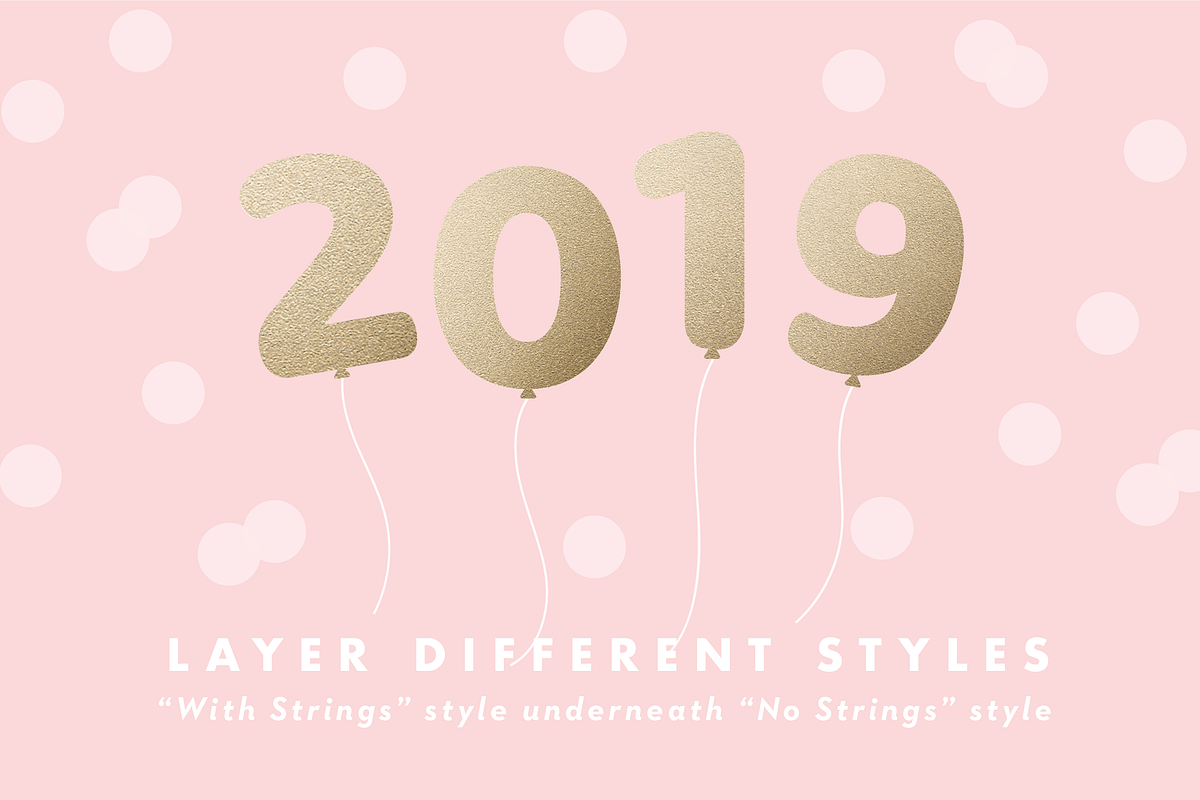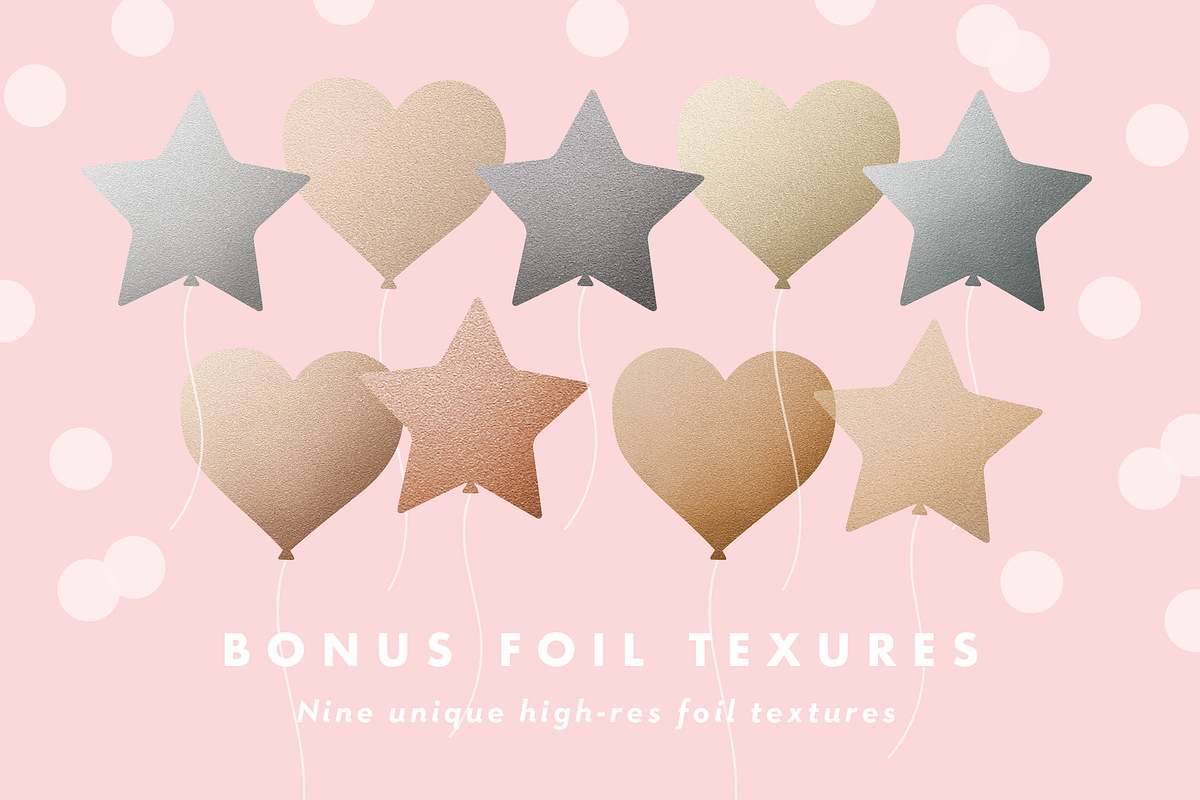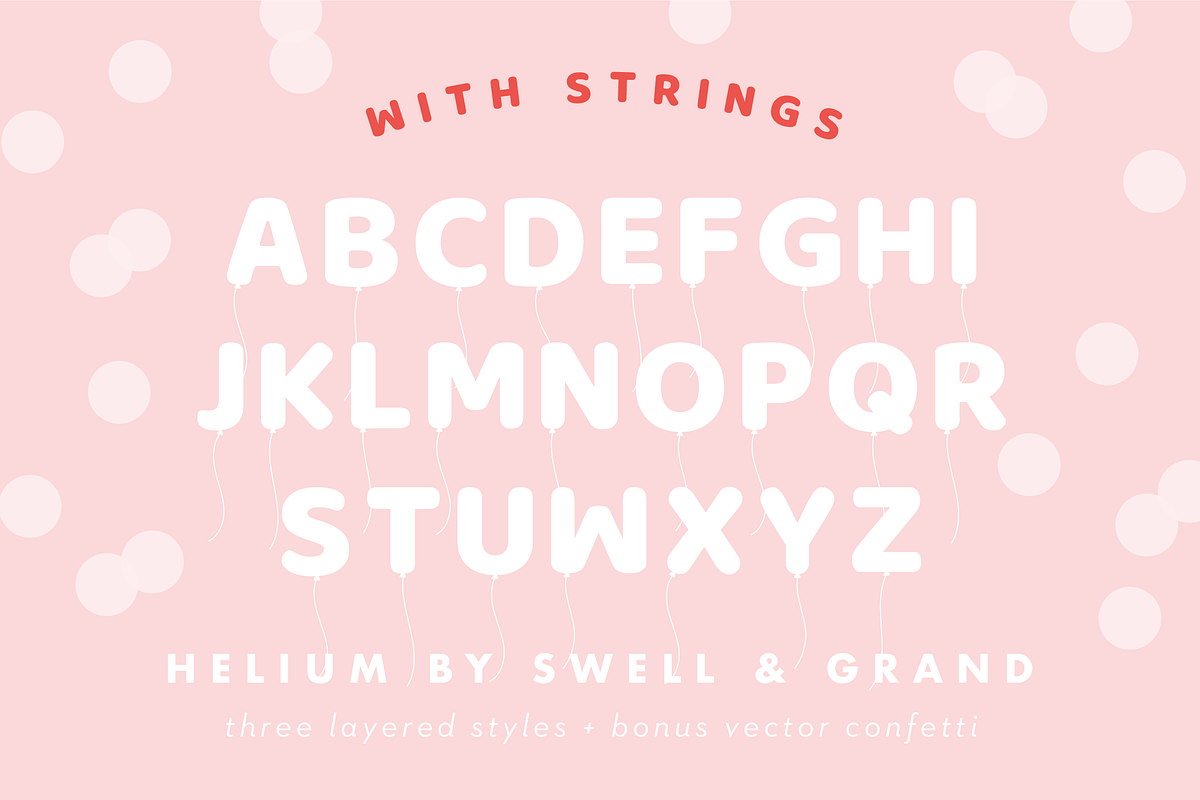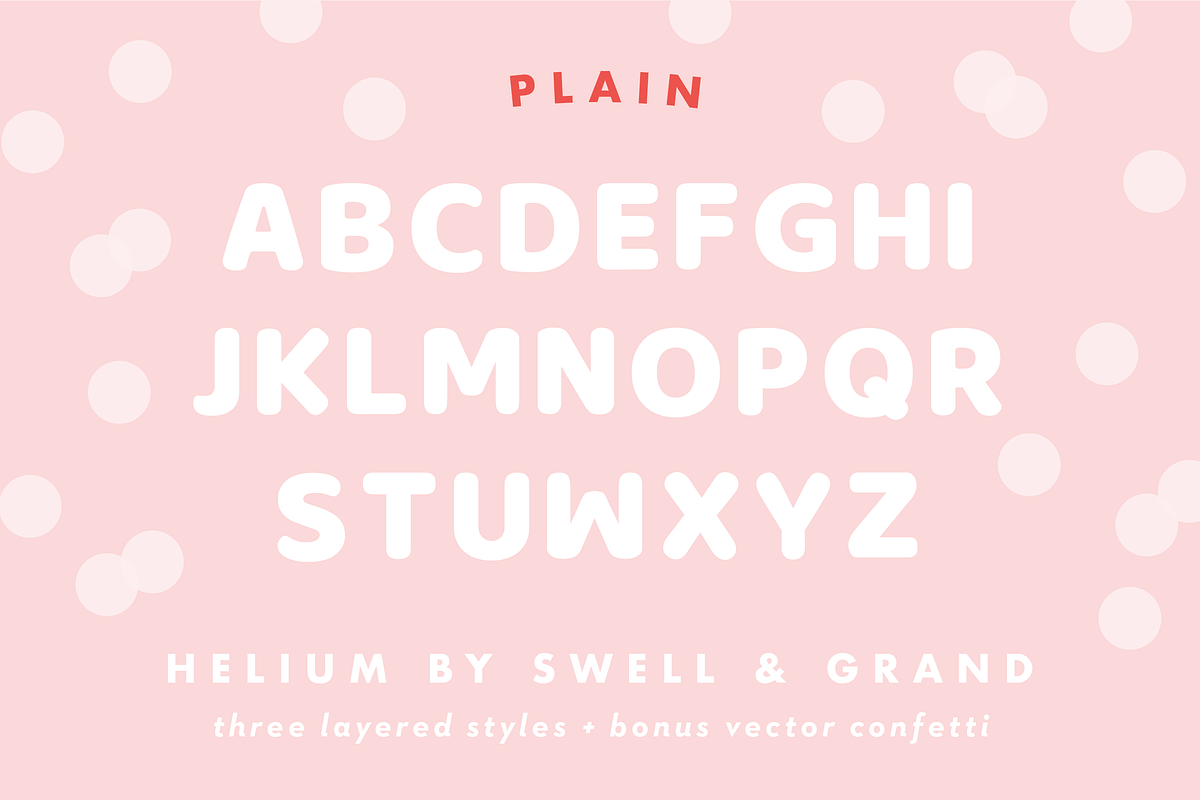
Helium, A Balloon Letter Font
Bring on the cute! This balloon inspired font is perfect for birthdays, kid's decor, and Valentine's Day
Helium is suitable for stationery, wedding invitations, branding, home decor, blog design, custom art, custom stamps, custom embossers, or any design purpose.